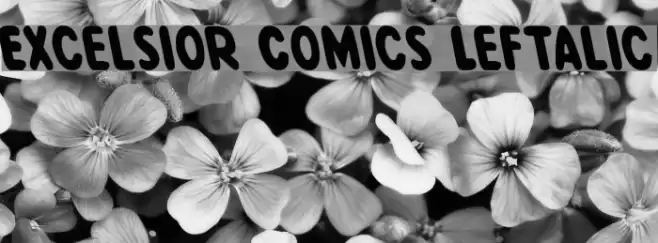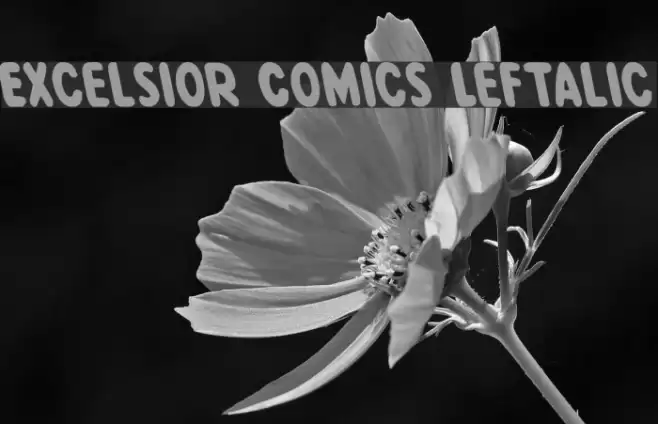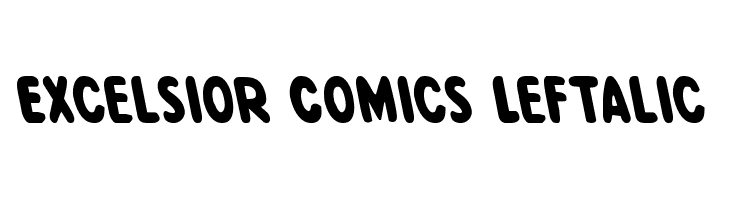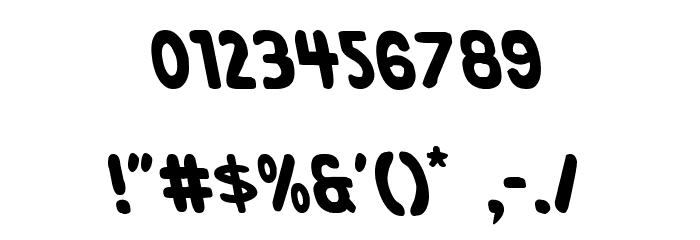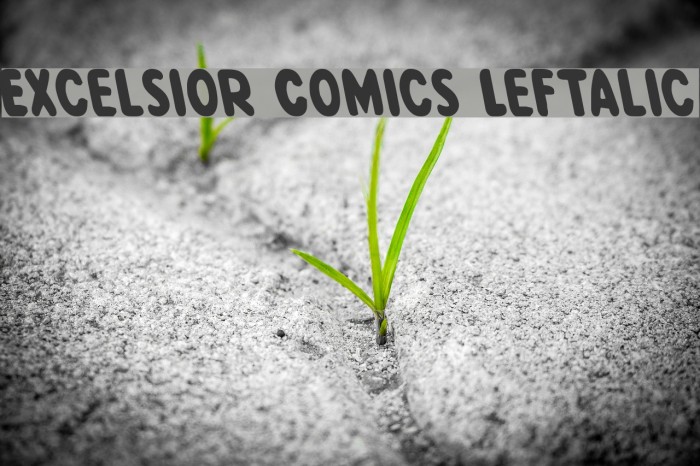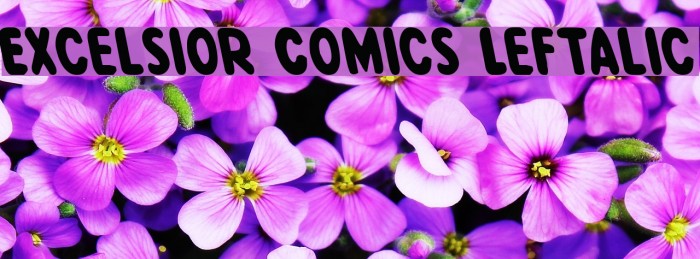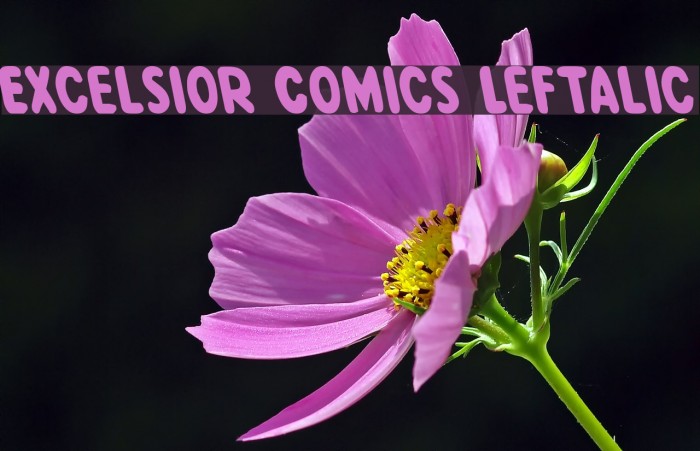
Excelsior Comics Leftalic Font
Excelsior Comics Leftalic Description
This playful and bold font features rounded edges and a slightly slanted orientation, giving it a dynamic and informal appearance. The characters are thick and well-defined, with a consistent stroke width that maintains readability. The font exudes a comic-like charm, making it ideal for projects that require a touch of whimsy and fun. Its boldness ensures that it stands out, while the rounded forms add a friendly and approachable feel. The spacing between characters is tight, contributing to its cohesive look. This font is perfect for creative projects that aim to capture attention and convey a lighthearted tone.
A playful, bold, and slightly slanted font with rounded edges, ideal for informal and fun projects from Comic fonts.
- Proposed Projects: Comic books, children's books, playful branding, posters, and social media graphics.
- Character Spacing: Tight
- Overall Style: Playful